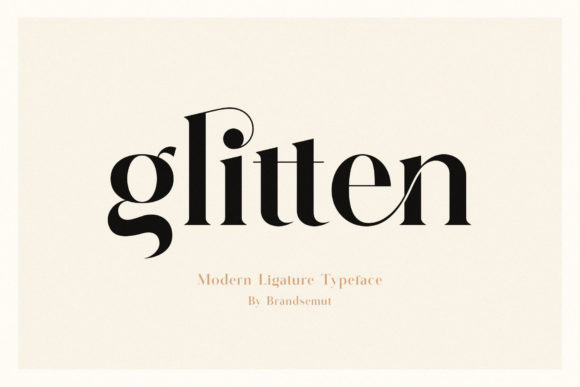
Introducing Glitten Font, the perfect solution for all your small display needs. Created by BrandSemut, this bold and elegant serif font is guaranteed to captivate and inspire. Get ready to fall head over heels for Glitten's incredibly versatile style, and unlock a world of endless design possibilities!
Glitten Font is the ultimate choice for those seeking the best font for small display. Whether you're working on a website, mobile app, or any other project that requires attention to detail, Glitten is here to elevate your design game. With its impeccable legibility and stunning aesthetic, this font is guaranteed to leave a lasting impression on your audience.
Why settle for ordinary when you can have extraordinary? Glitten Font stands out from the crowd with its unique and captivating charm. Its bold, yet refined appearance exudes confidence and sophistication, making it the perfect choice for branding, logos, and headlines that demand attention.
But wait, there's more! Glitten Font doesn't stop at just being visually stunning. It also offers a seamless user experience, ensuring that your message is delivered effortlessly. The carefully crafted letterforms and well-defined serifs make reading a pleasure, even at smaller sizes. Say goodbye to squinting and hello to crystal-clear readability.
With Glitten Font, the possibilities are endless. Whether you're designing for fashion, beauty, travel, or any other industry, this font effortlessly adapts to any style or theme. Its versatility knows no bounds, allowing you to create eye-catching typography that speaks volumes.
In conclusion, Glitten Font is the epitome of elegance and style. Its boldness commands attention, while its versatility opens up a world of possibilities. Say goodbye to ordinary and embrace the extraordinary with Glitten Font. Download now and embark on a design journey like no other. Your audience will thank you for it!